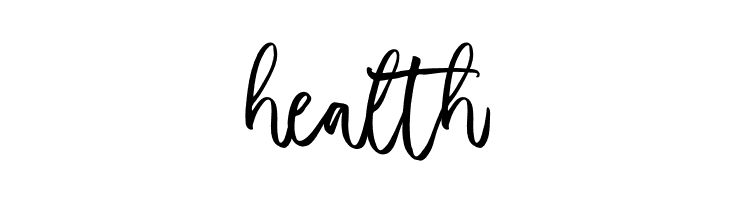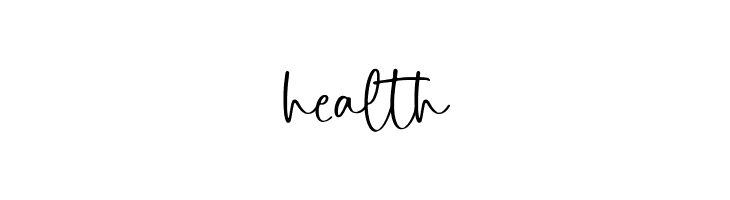
A playful, bold handwritten font with rounded edges and varying stroke widths.
A playful, casual handwritten font with smooth curves and a friendly appearance.
A flowing, elegant script font with bold, expressive strokes.
A lively, cursive font with a handwritten, artistic style.
A playful, rounded font with a hand-drawn, friendly appearance.
A casual, elegant handwritten font with fluid, natural strokes.
A playful and elegant handwritten font with fluid strokes.
A playful, handwritten font with fluid strokes and dynamic contrast.
A casual handwritten font with smooth, flowing curves and a friendly appearance.
A playful, handwritten font with a casual and flowing style.